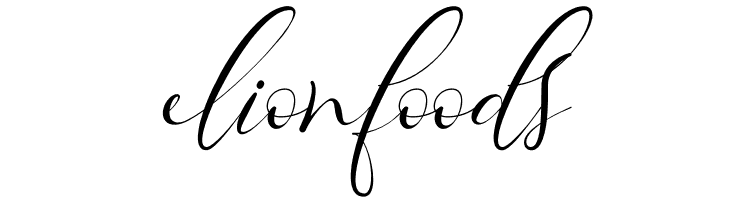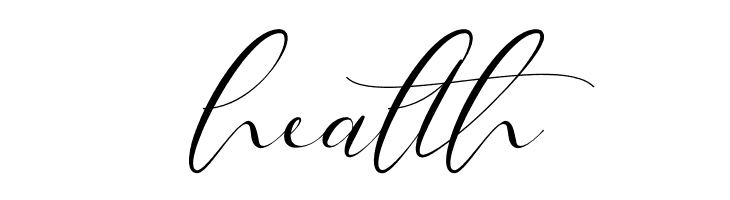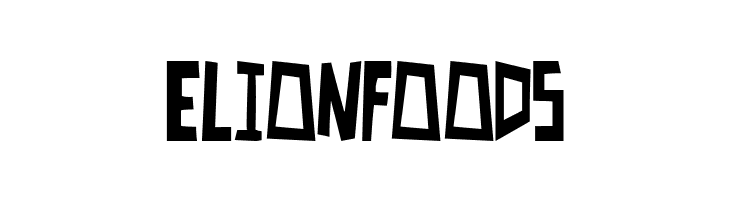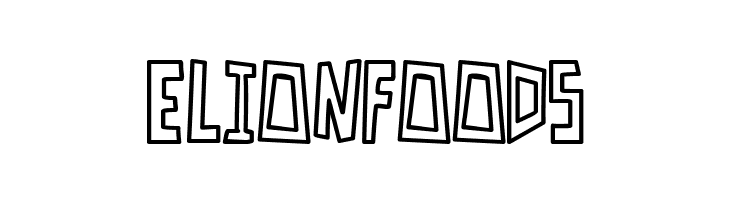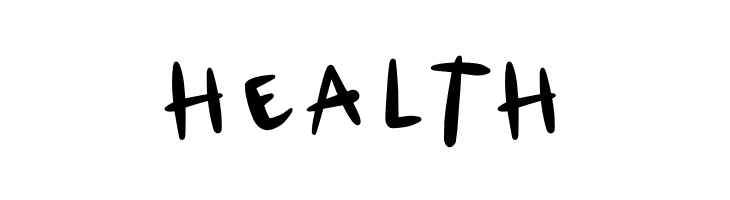
2Peas Mister Giggles Font
A playful, whimsical font with quirky curves and exaggerated serifs.
Mister Belvedere Oblique Font
A bold, oblique font with angular, geometric characters for a modern, dynamic look.
Mister Belvedere Font
A bold, geometric font with strong, angular shapes ideal for impactful headlines.
MCF bad manners wild west Font
A bold blackletter font with sharp, angular lines and ornate detailing.
Mister Sinatra Slim Font
A bold serif font with a classic yet modern style, featuring strong serifs and consistent strokes.
Mister Belvedere Upper Font
A bold, geometric font with strong, angular lines and a robust presence.
Mister Belvedere 3D Font
A bold, 3D font with a retro, impactful style.
Mister Filthy Font
A bold, distressed font with a grunge aesthetic and rugged texture.
MCF funera flourish Font
A decorative and gothic font with intricate flourishes and high contrast strokes.
MCF krechet Font
A bold, angular font with a modern Gothic influence.
MCF zelfis Font
A bold blackletter font with intricate Gothic detailing.
MCF bad manners Font
A bold, gothic Blackletter font with intricate, angular designs.
MCF Revolution ink Font
A bold, ink-splattered font with dynamic, brush-like strokes.
Mister Pixel 16 pt - Regular Font
A pixelated, retro-style font with a uniform blocky appearance.
Fliped Font
A bold, distressed stencil font with an industrial, vintage feel.
Mister Pixel 16 pt - Old Style Figure Font
A pixelated, retro-style font with a blocky, digital appearance.
Mister Spicy Dos Font
A playful, handwritten font with a casual and dynamic style.
Mistery Curse Personal Use Font
An elegant cursive font with flowing, interconnected letterforms and decorative swashes.
MCF Stone Head Font
A bold, decorative font with intricate flourishes and a vintage feel.
Mister Pixel 16 pt - Small Caps Font
A pixelated, retro-style font with a digital, nostalgic aesthetic.
MisterVampire Font